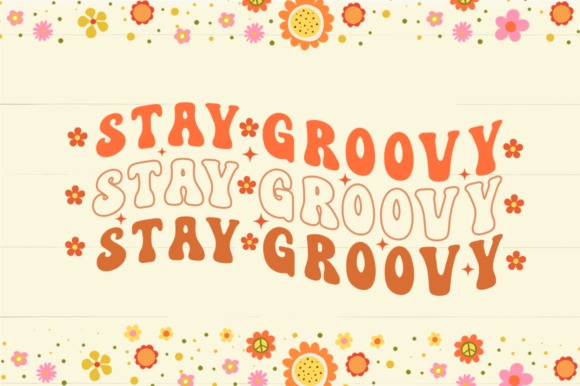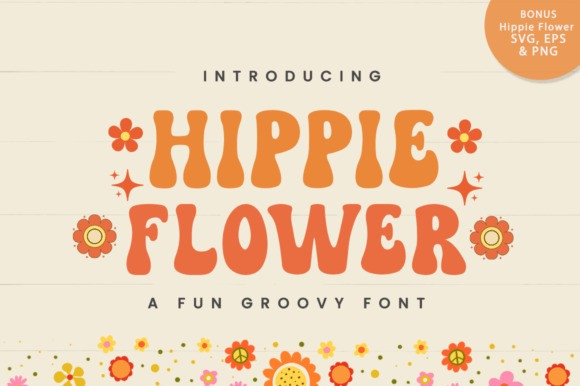
Hippie Flower Font
Hippie Flower Font is a fun, retro-style display font. This font is perfect for groovy themed designs, especially when paired with groovy colors. With some added bonuses of svg, eps and png.